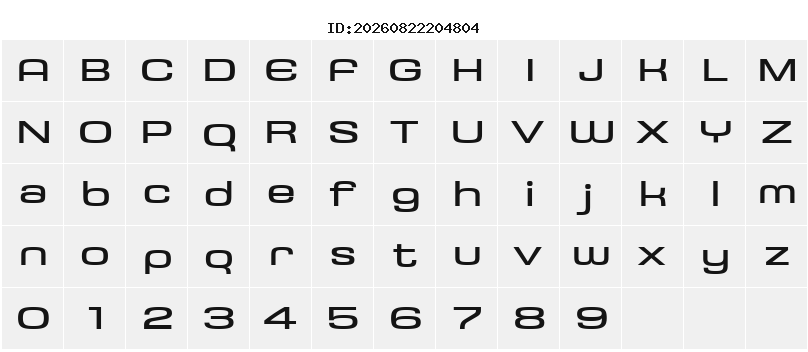
About Saturn-ExtendedRegular.ttf
Saturn-ExtendedRegular.ttf is a modern, elegant sans-serif font designed for ultimate readability and visual harmony. Perfect for branding, headlines, web design, and print materials.